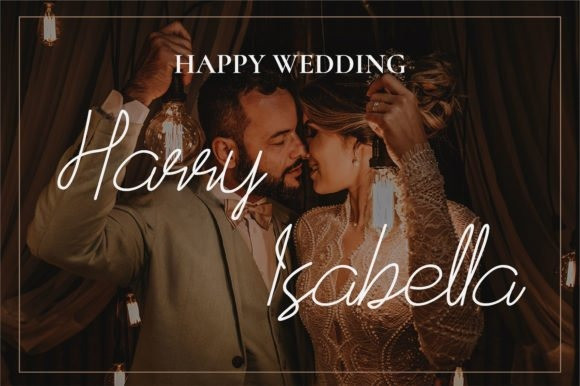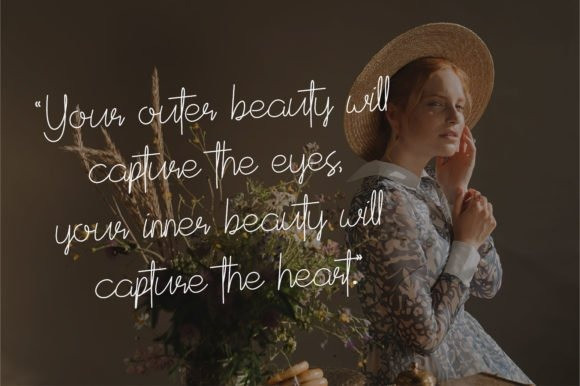
Shecarea Script Font
Shecarea feels magical and delicate. It looks lovely on cards, quotes, greeting cards, logos, business cards and every other design which needs a personalized touch.